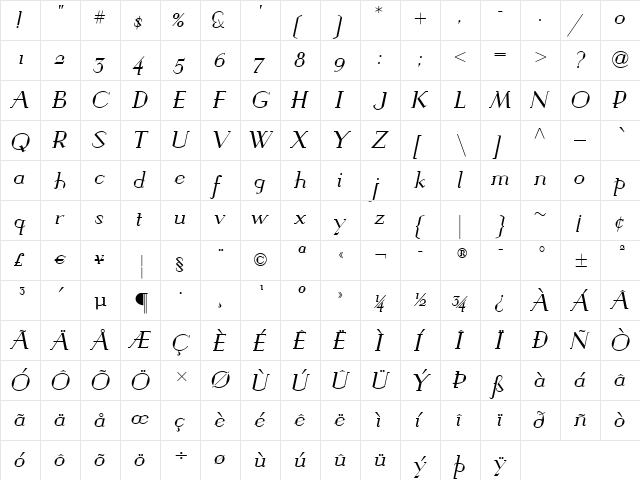
SavoyRomanNF Medium Italic
| Foundry | Nick's Fonts |
| Designer | Nick Curtis |
Design Context for SavoyRomanNF Typeface
SavoyRomanNF is a composed and adaptable typeface that performs quietly and consistently across a wide range of design contexts. The slanted form adds forward momentum and visual energy.